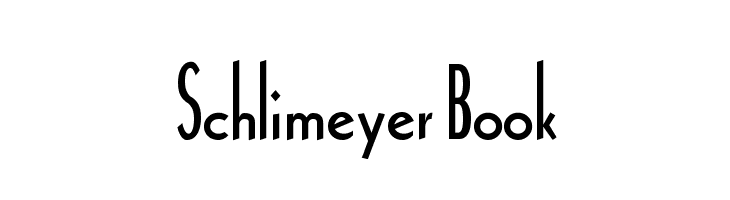
A vintage, typewriter-inspired font with monospaced, slightly irregular strokes.
A futuristic, geometric font with rounded edges and consistent line thickness.
A gothic, elongated font with sharp serifs and a dramatic presence.
A playful, hand-drawn font with bold outlines and a whimsical style.
A bold, textured decorative font with a distressed, grunge-like appearance.
设计师偏爱 TypewriterScribbled, Schlimeyer Book, Planet Space, Nosferotica and hellafont,因为其造型干净、适用范围广—— 从品牌识别到落地页、海报都能胜任。